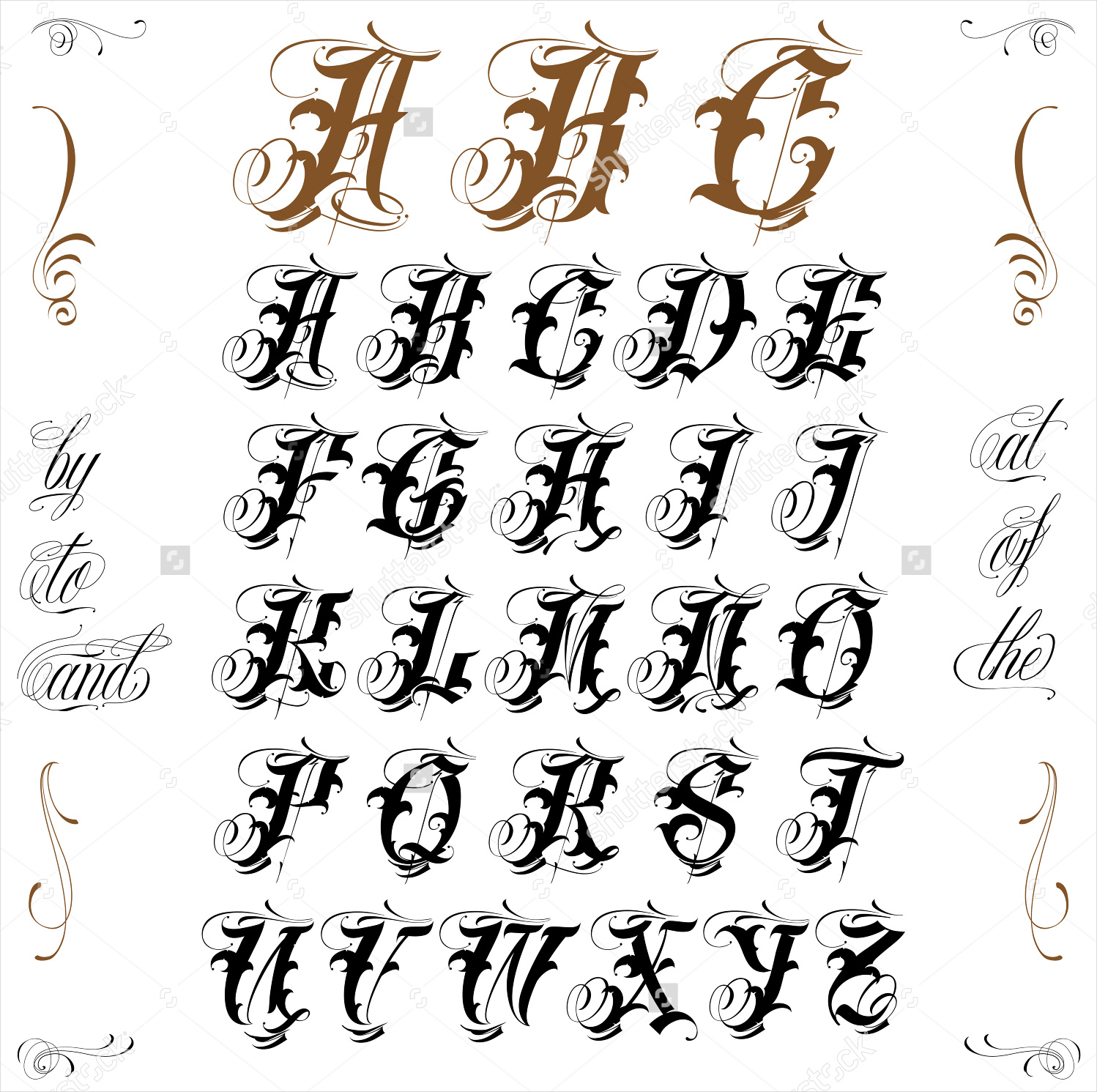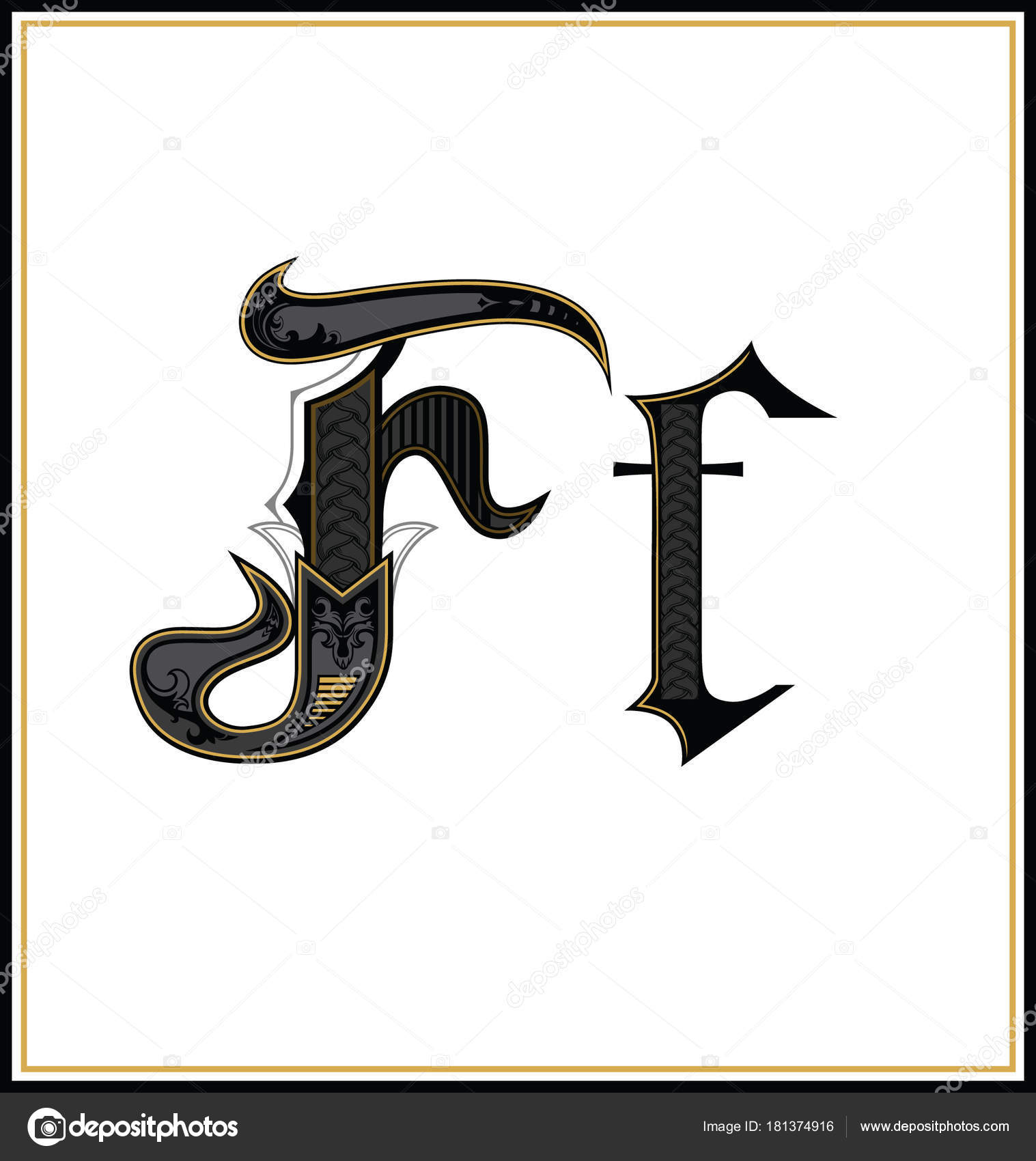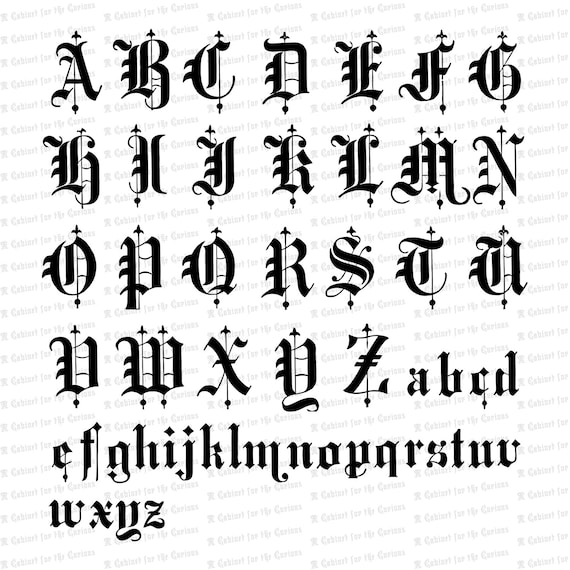
Old English Alphabet Calligraphy Letter
The Old English also known as blackletter dates back to 1000 years ago when it was used as a script throughout Western Europe. Victorian Fonts Victorian fonts have designs that reflect the Victorian period of art in Britain in the early 1900s. Various forms of blackletter exist mainly including Textualis the most calligraphic form of blackletter.
Victorian Old English Font. Old English Font The Old English script makes your designs look like they are from the Middle Ages. Victorian Old English Fancy Text Ornamental Alphabet Vector Clipart Vintage Ornamental Uppercase Lowercase Letters Calligraphy SVG PNG.
We have 24 free Calligraphy Old-english Fonts to offer for direct downloading 1001 Fonts is your favorite site for free fonts since 2001. Installable font created from a vintage 1884 ornamental Old English Fancy Text alphabet sourced from an antique penmanship guide. It is also known as Blackletter or medieval calligraphy.